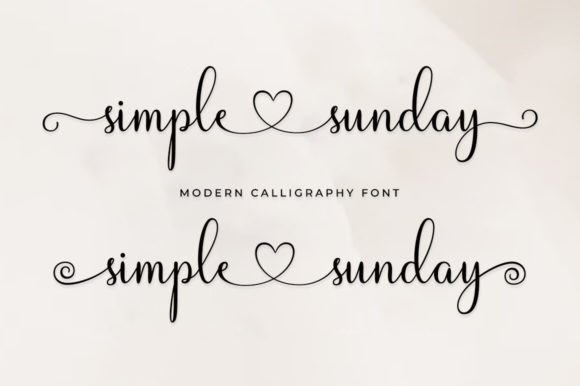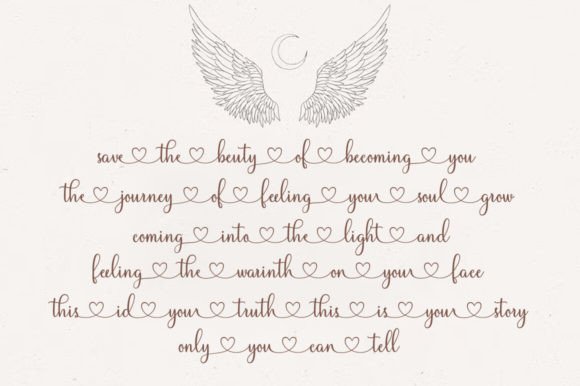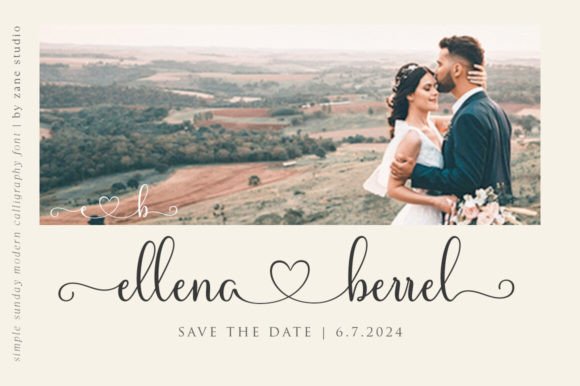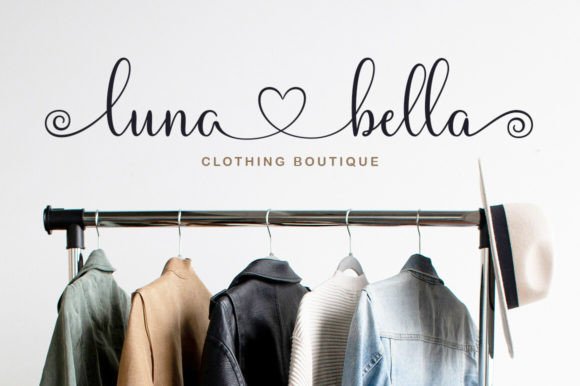
Simple Sunday Font
About the Simple Sunday Font
We are excited to introduce Simple Sunday Font, a must-have typeface for any serious designer. Simple Sunday is a modern calligraphy script perfect for wedding invitations, calligraphy logos for branding, elegant websites, personalized gifts, social media posts and whatever your heart desires!